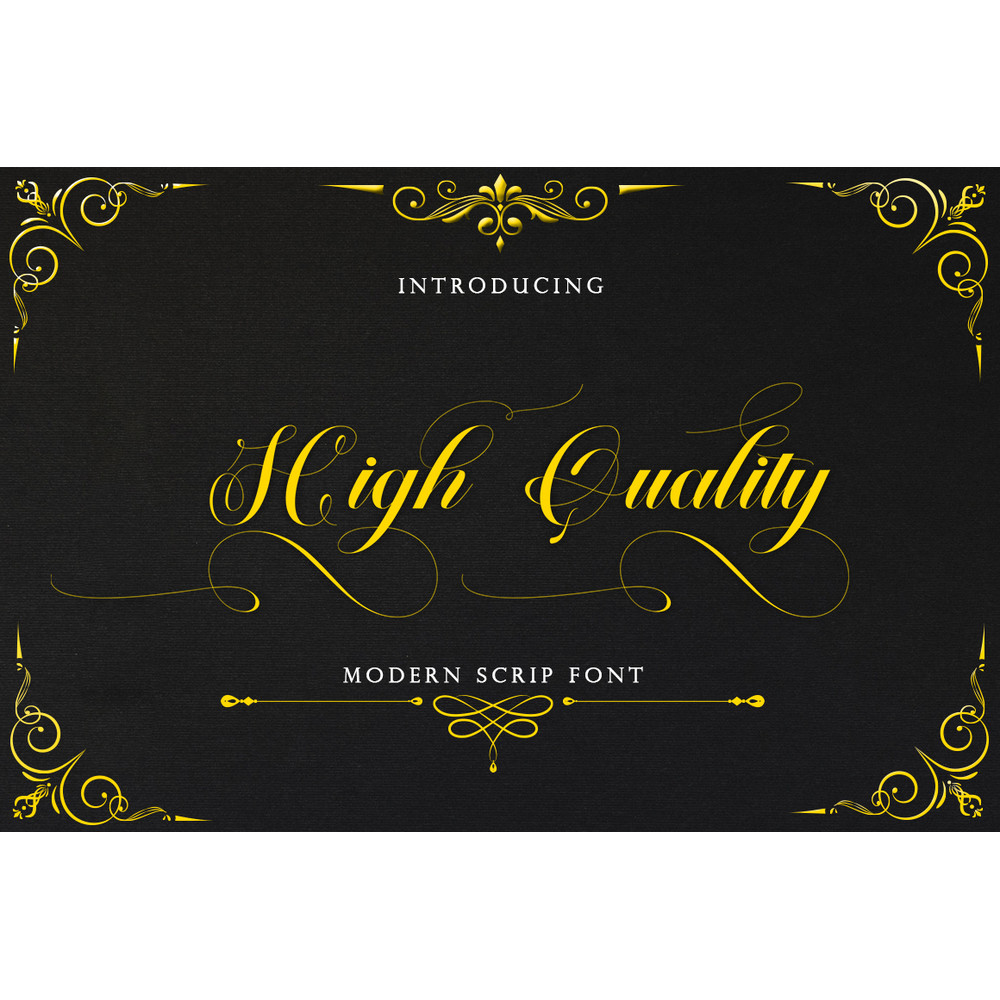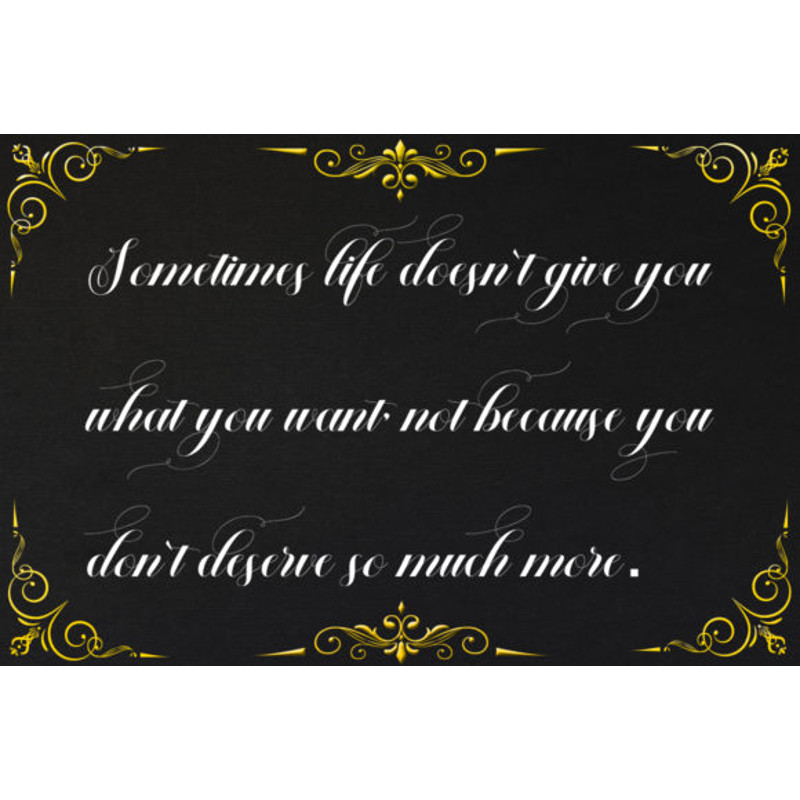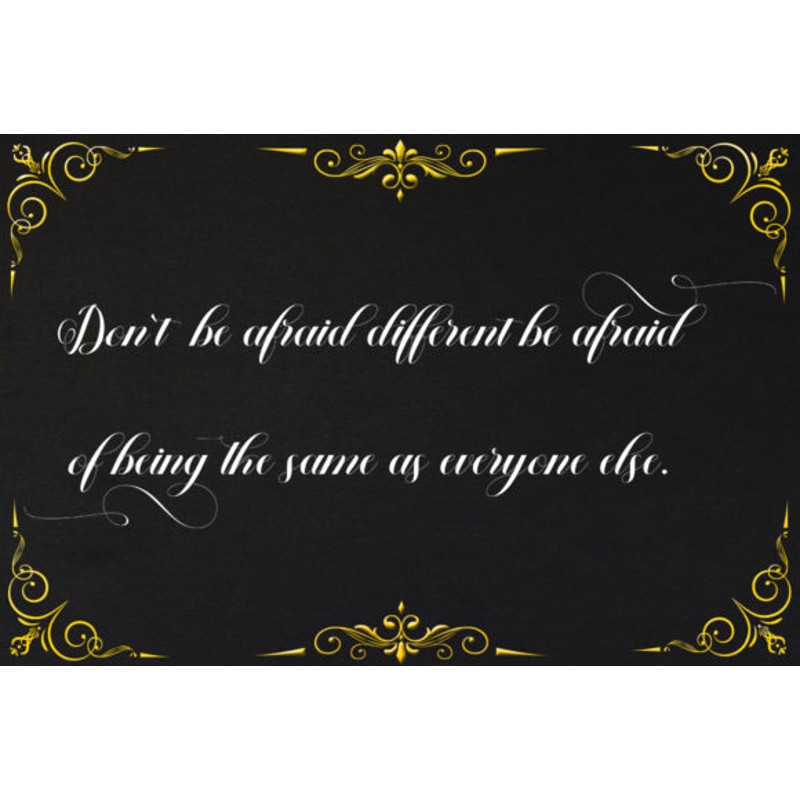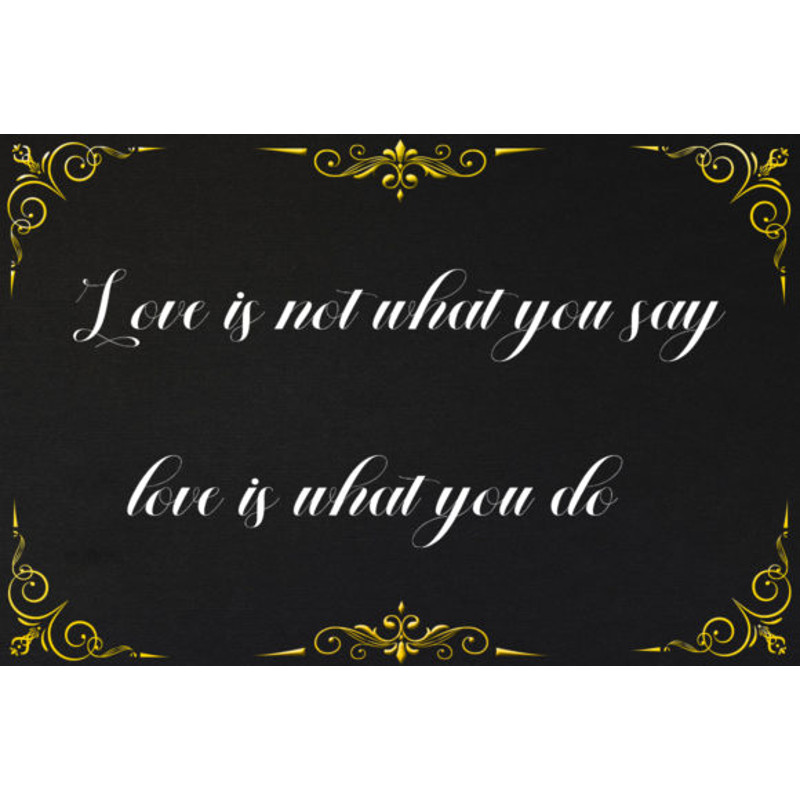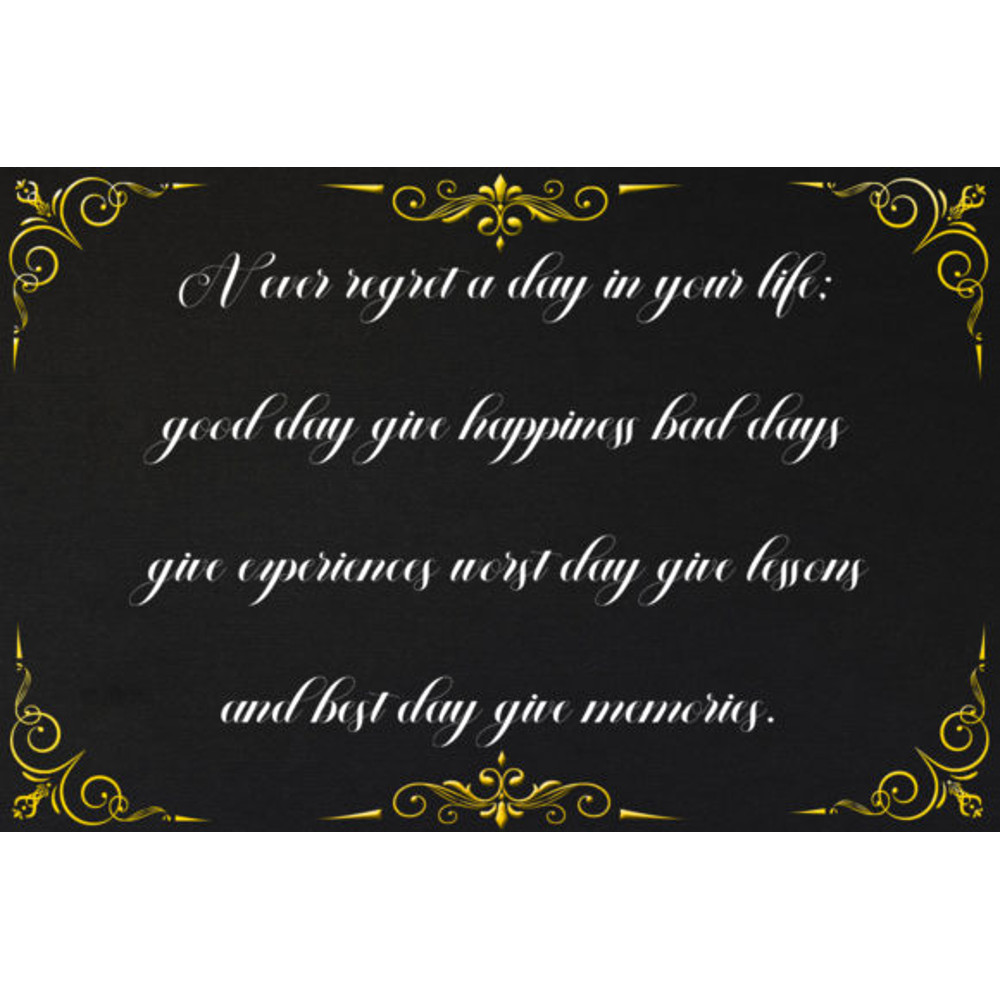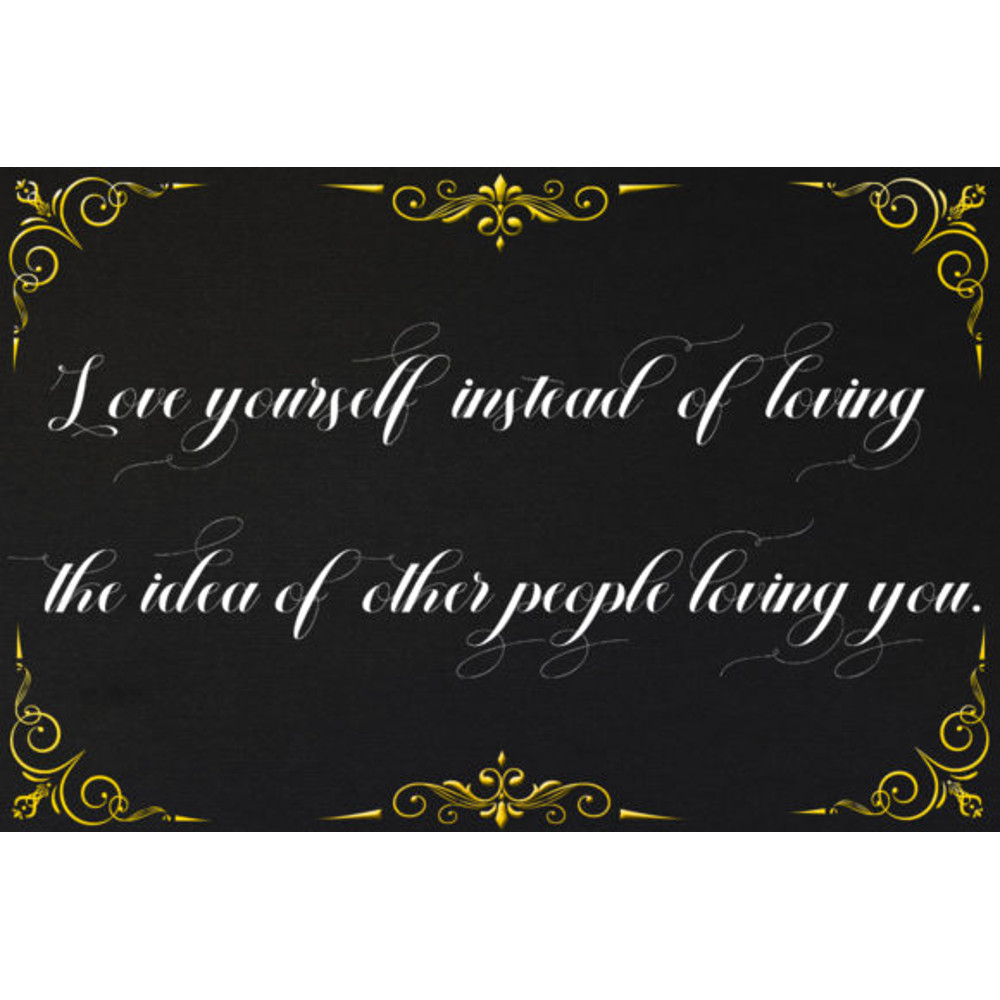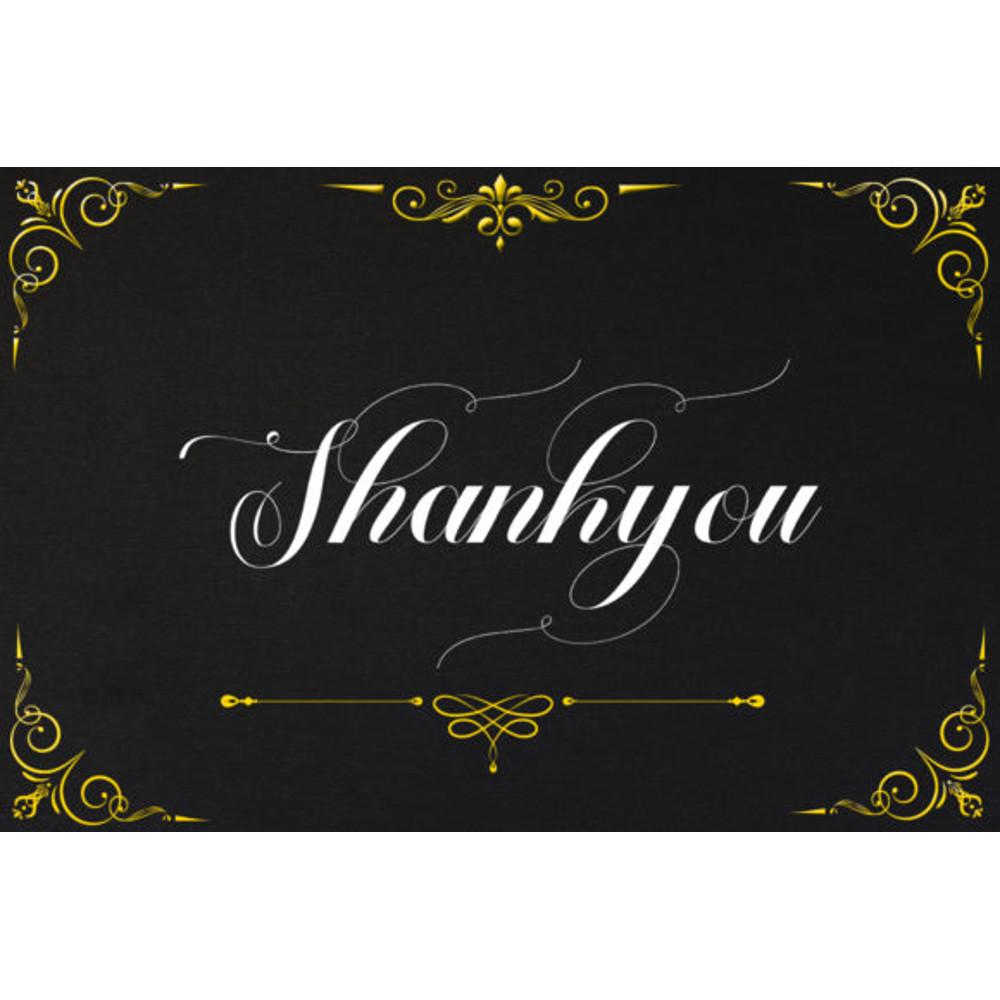
High Quality Font
High Quality is an elegant and flowing handwritten font. It maintains its classy calligraphic influences while feeling contemporary and fresh. Fall in love with this font and bring your projects to the highest levels!